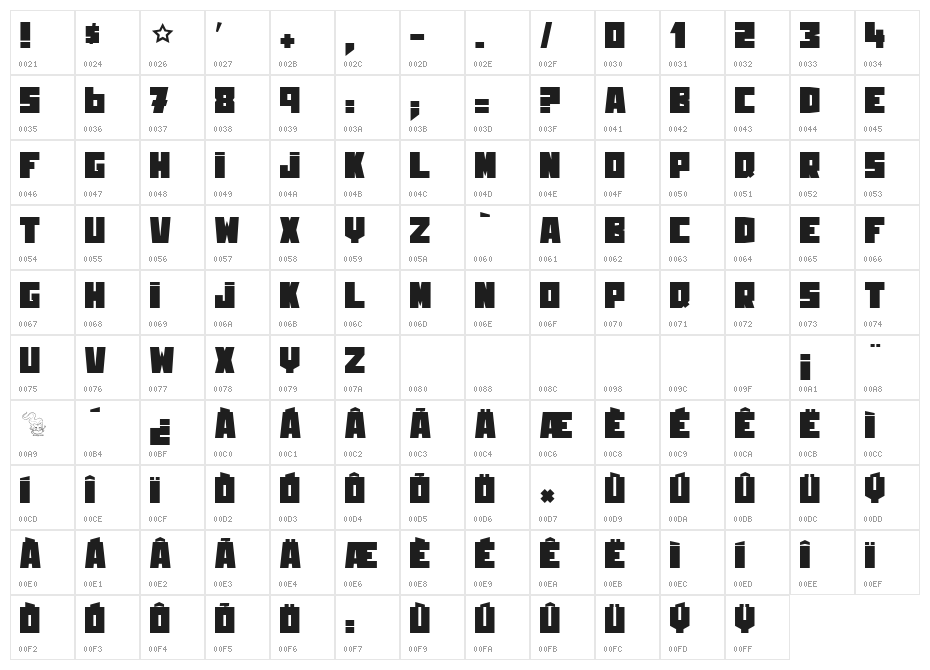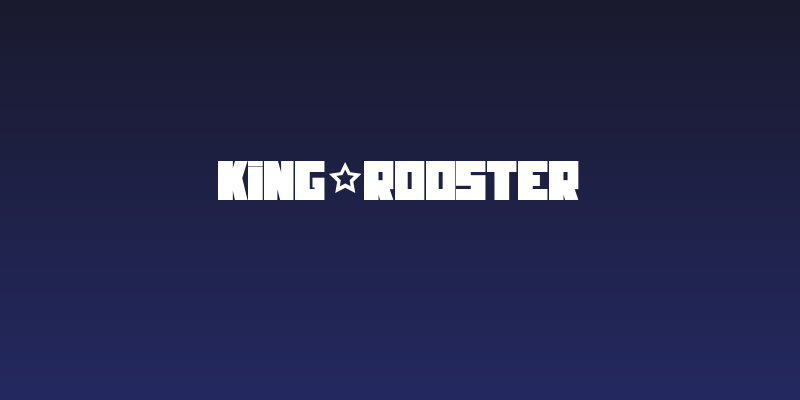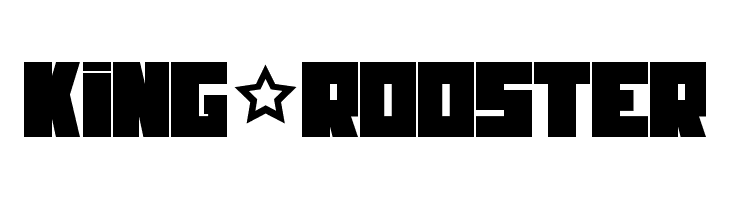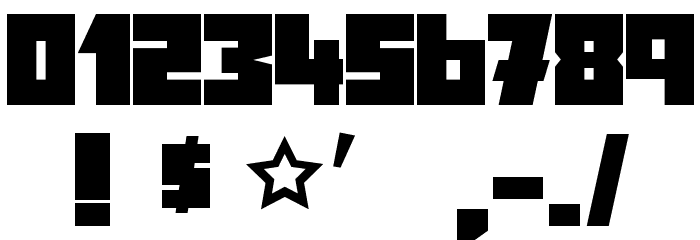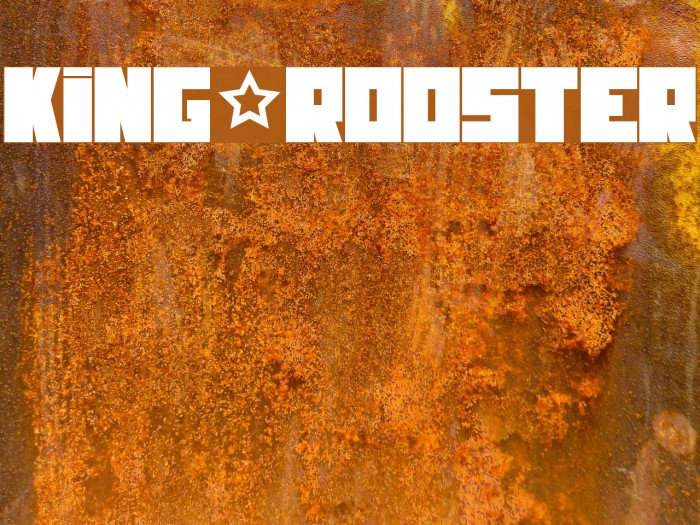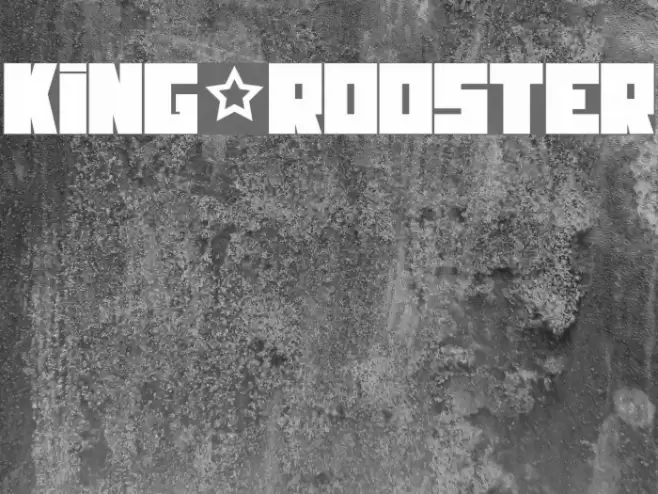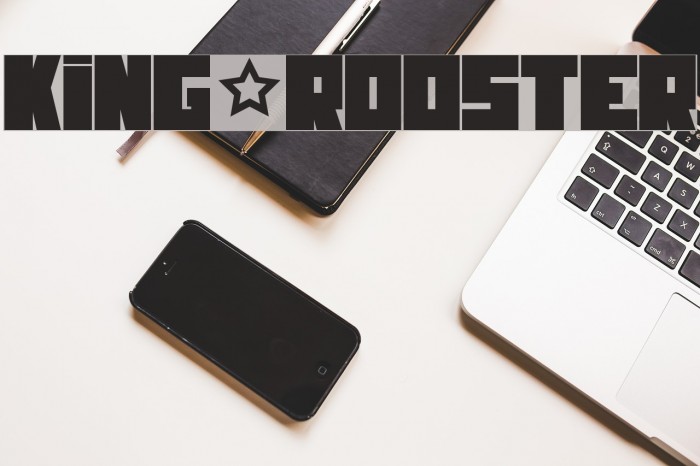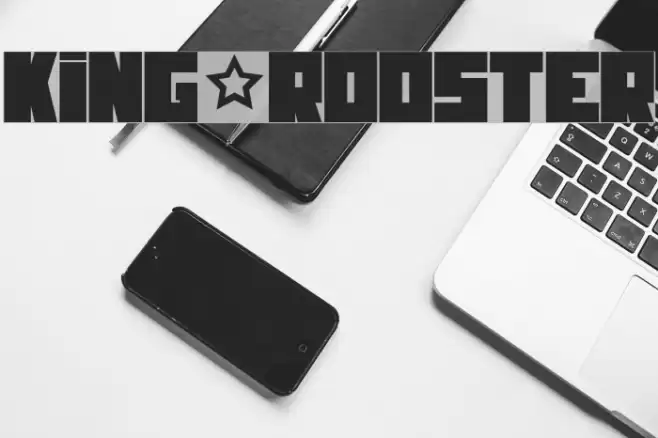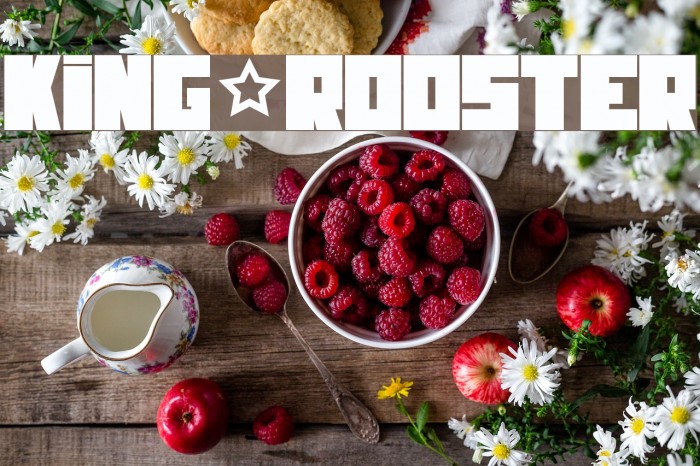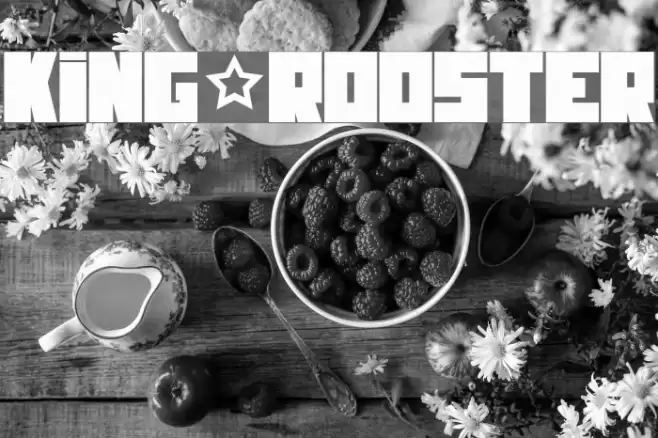
KING&ROOSTER Font
KING&ROOSTER Description
This font features a bold, geometric design with a strong presence. The characters are blocky and angular, giving a sense of strength and stability. The uppercase letters are particularly striking, with sharp edges and a uniform height that creates a cohesive look. The numbers and special characters maintain the same bold style, ensuring consistency across all text elements. This font's unique style makes it stand out, making it ideal for attention-grabbing designs.
| Proposed Projects | Ideal for posters, logos, and branding materials that require a strong visual impact. |